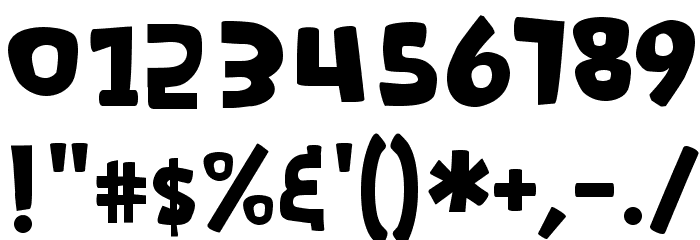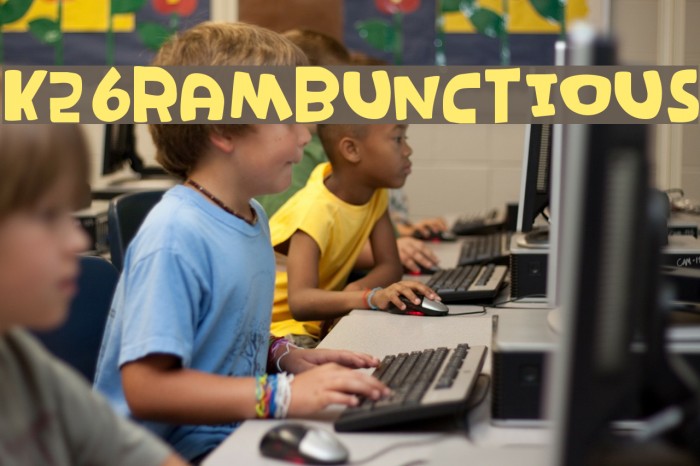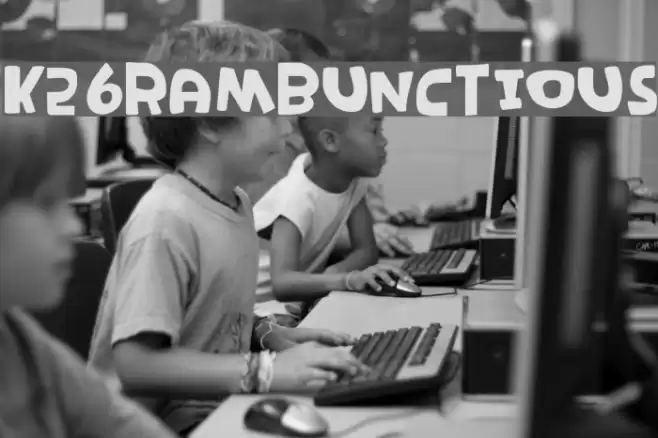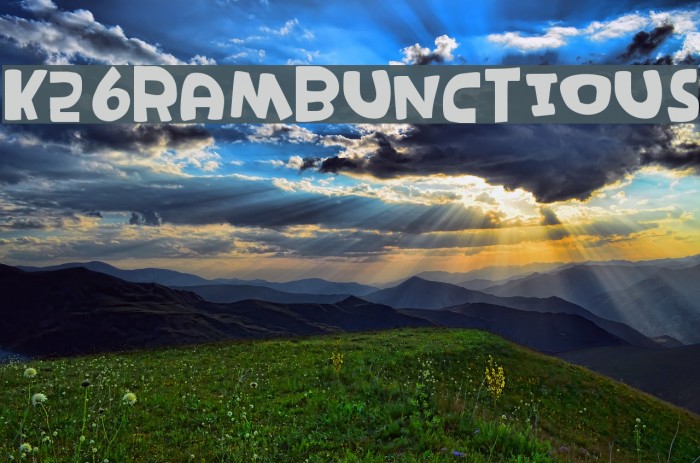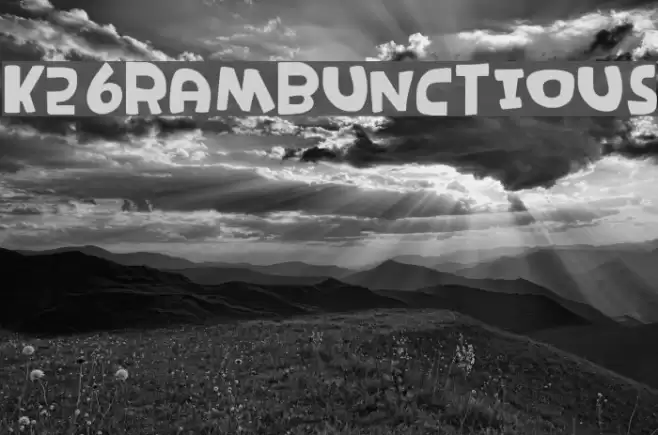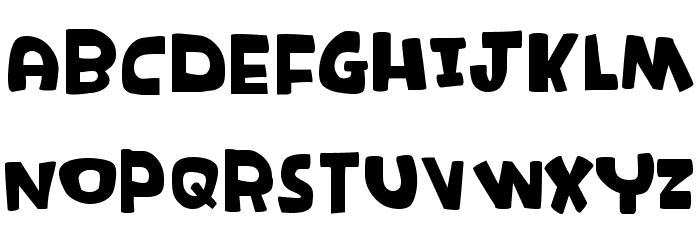
K26Rambunctious Font
K26Rambunctious Description
This font features a playful and bold style, characterized by its thick, rounded strokes and slightly irregular shapes. The letters have a whimsical, cartoon-like appearance, making them stand out with a sense of fun and energy. The uppercase and lowercase letters maintain a consistent weight, contributing to a cohesive look. The numbers and special characters are designed with the same playful aesthetic, ensuring uniformity across all glyphs. This font's unique style is perfect for projects that require a lively and engaging visual element.
| Overall Style | Playful |
| Proposed Projects | Ideal for children's books, comic strips, playful branding, and event posters. |